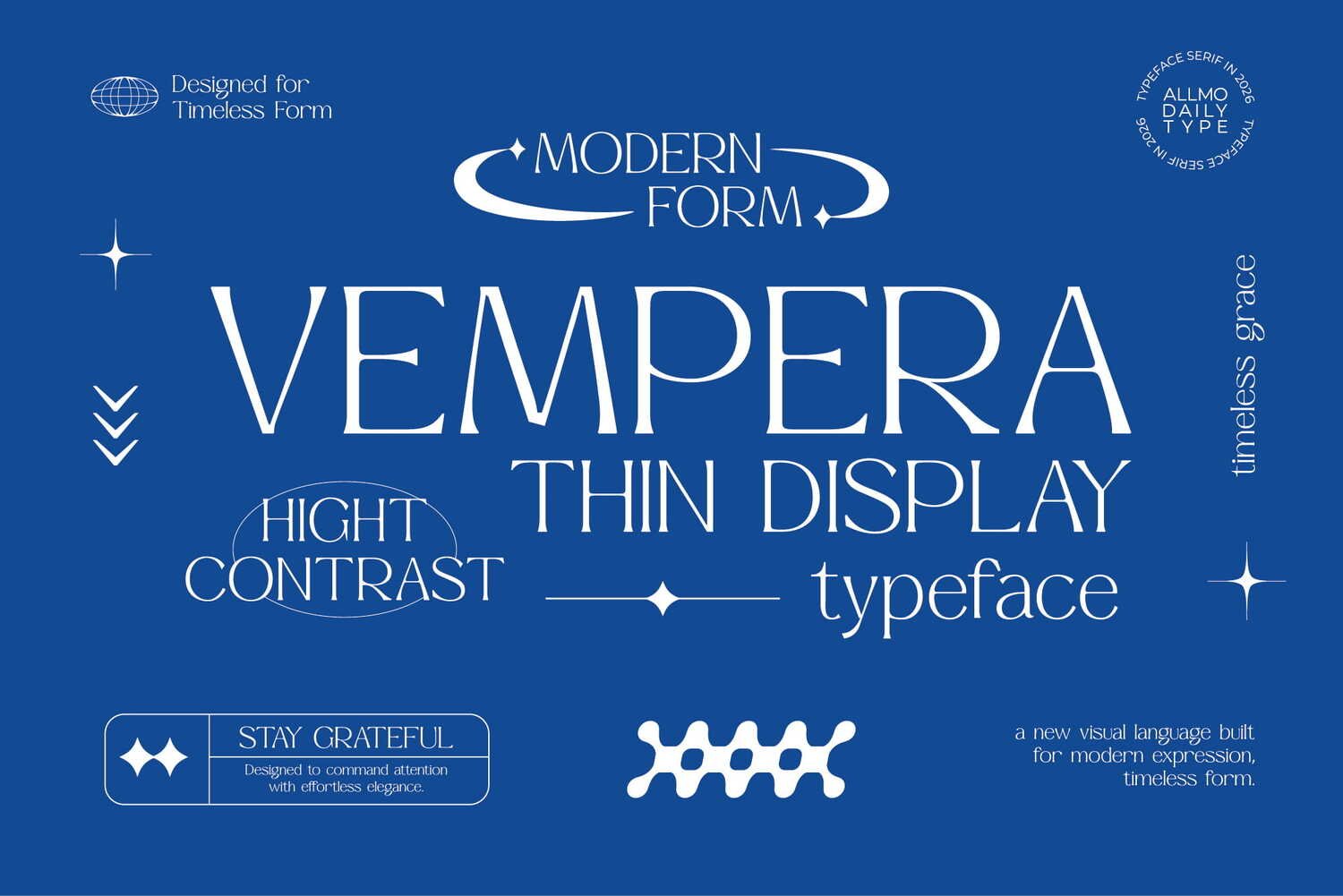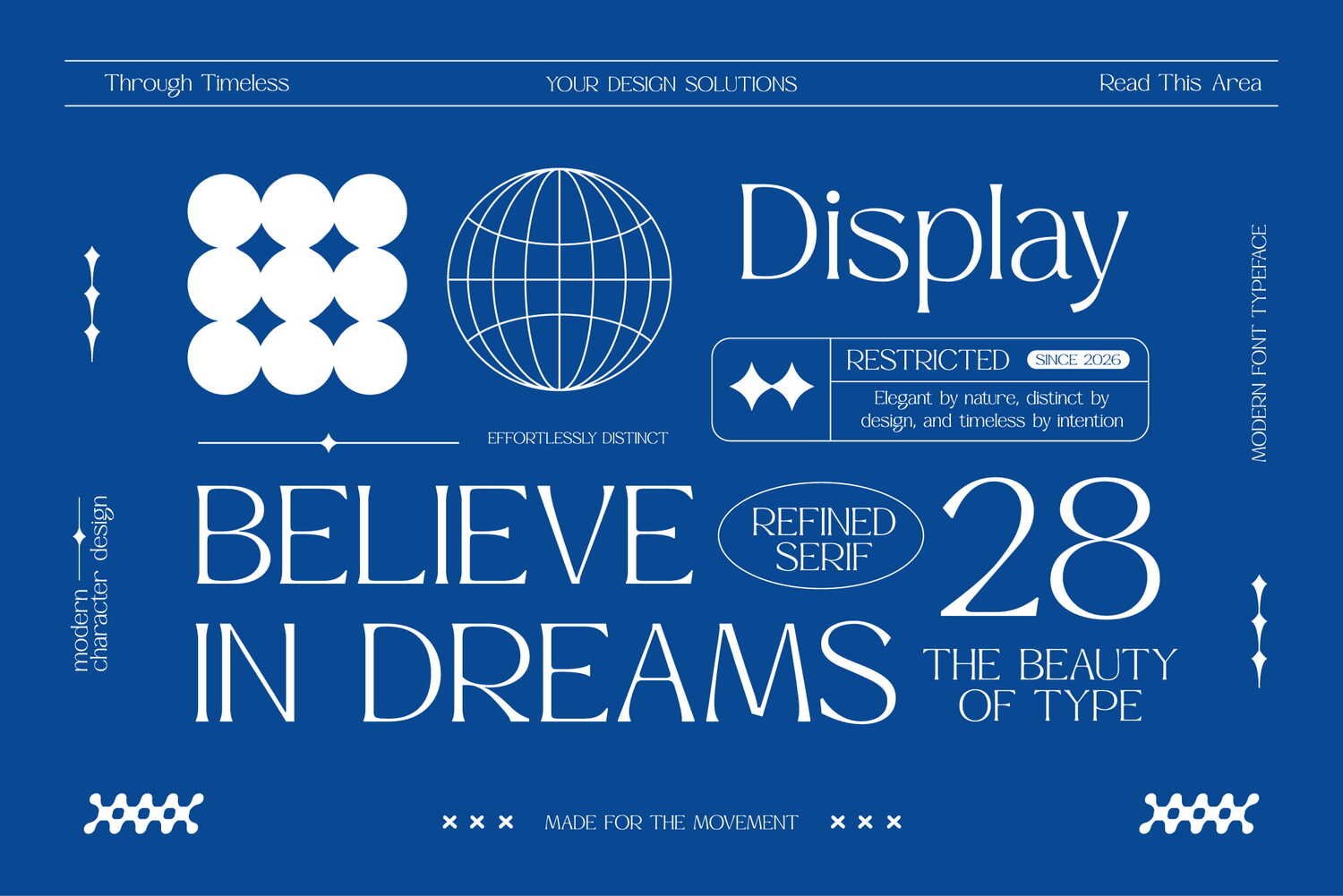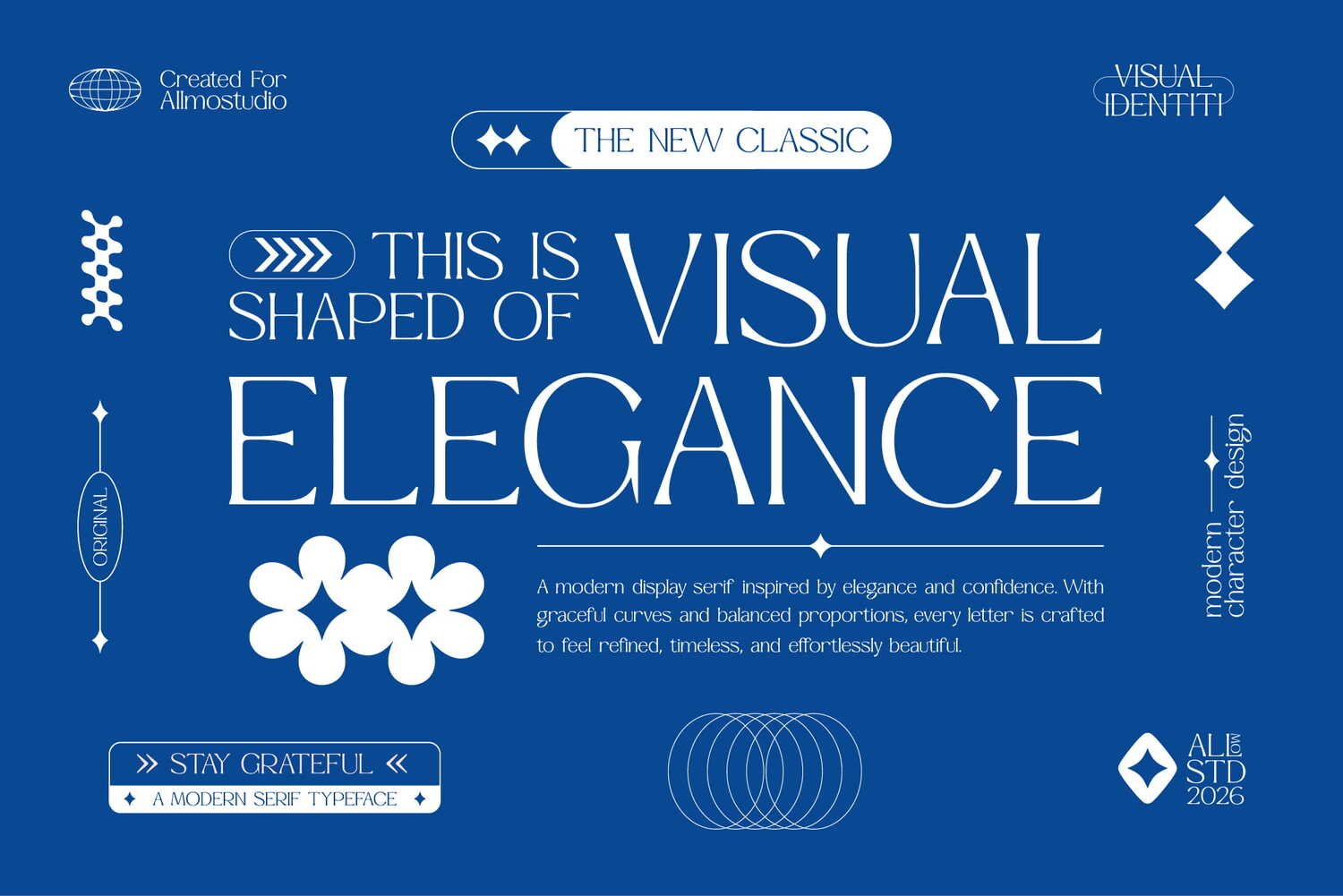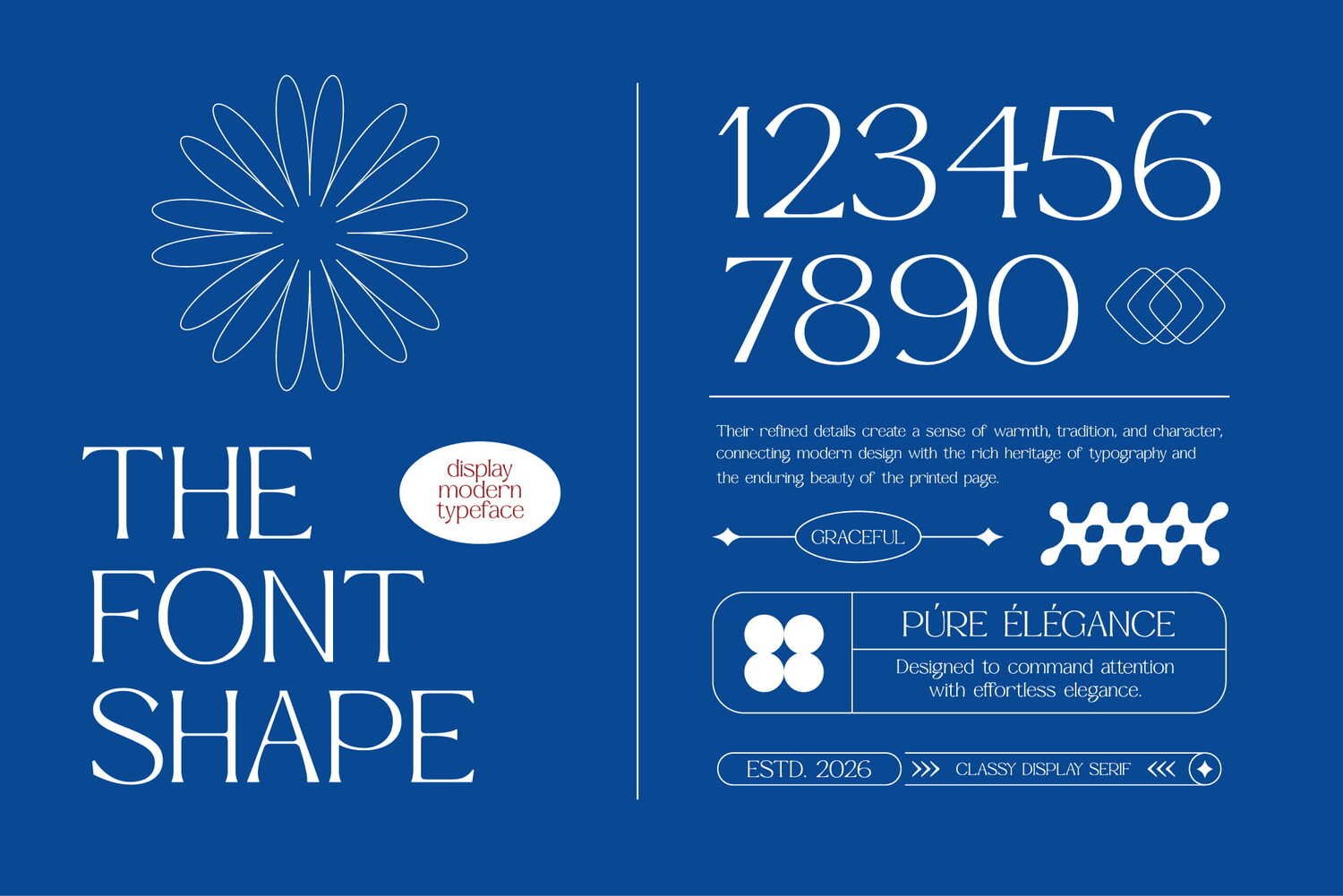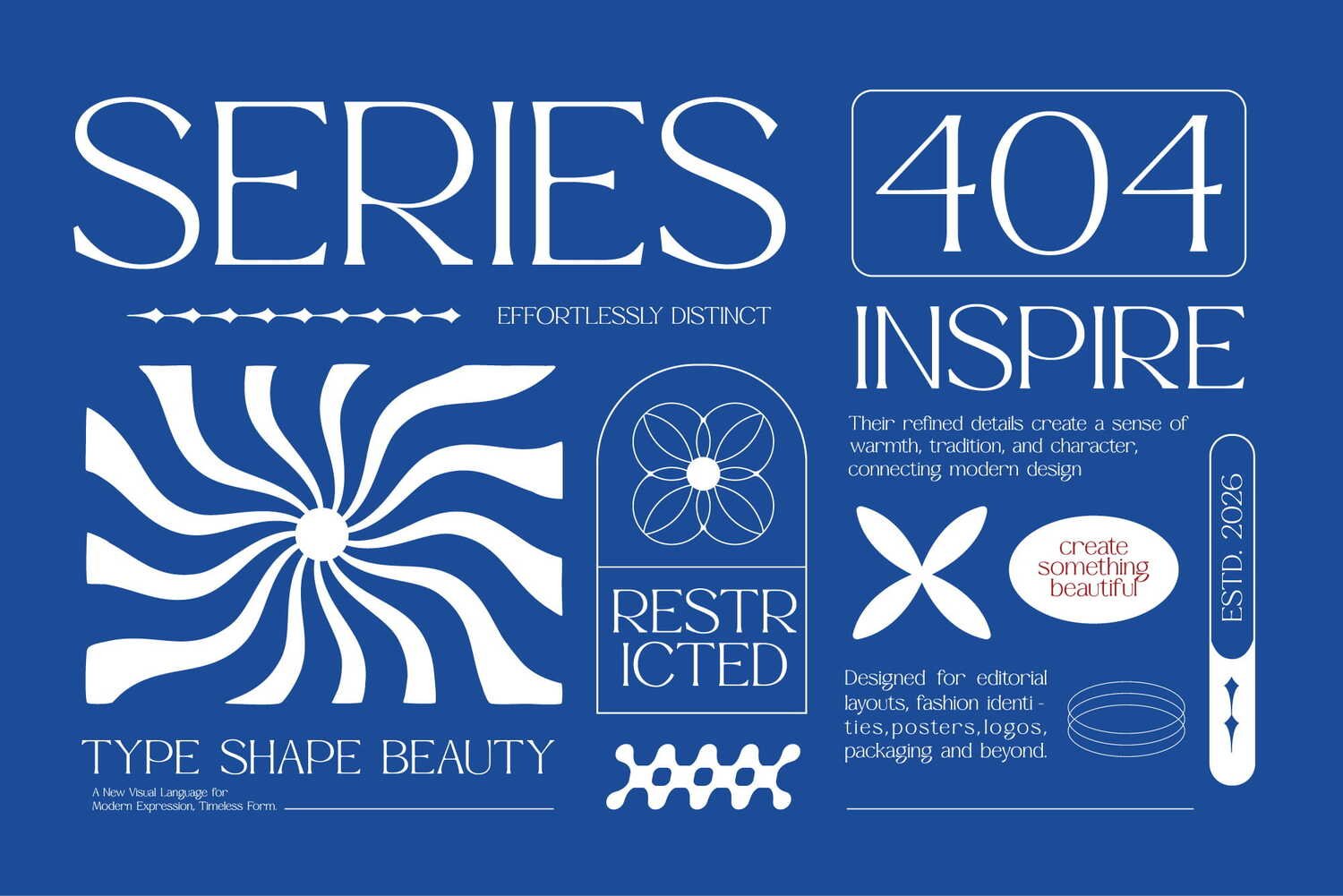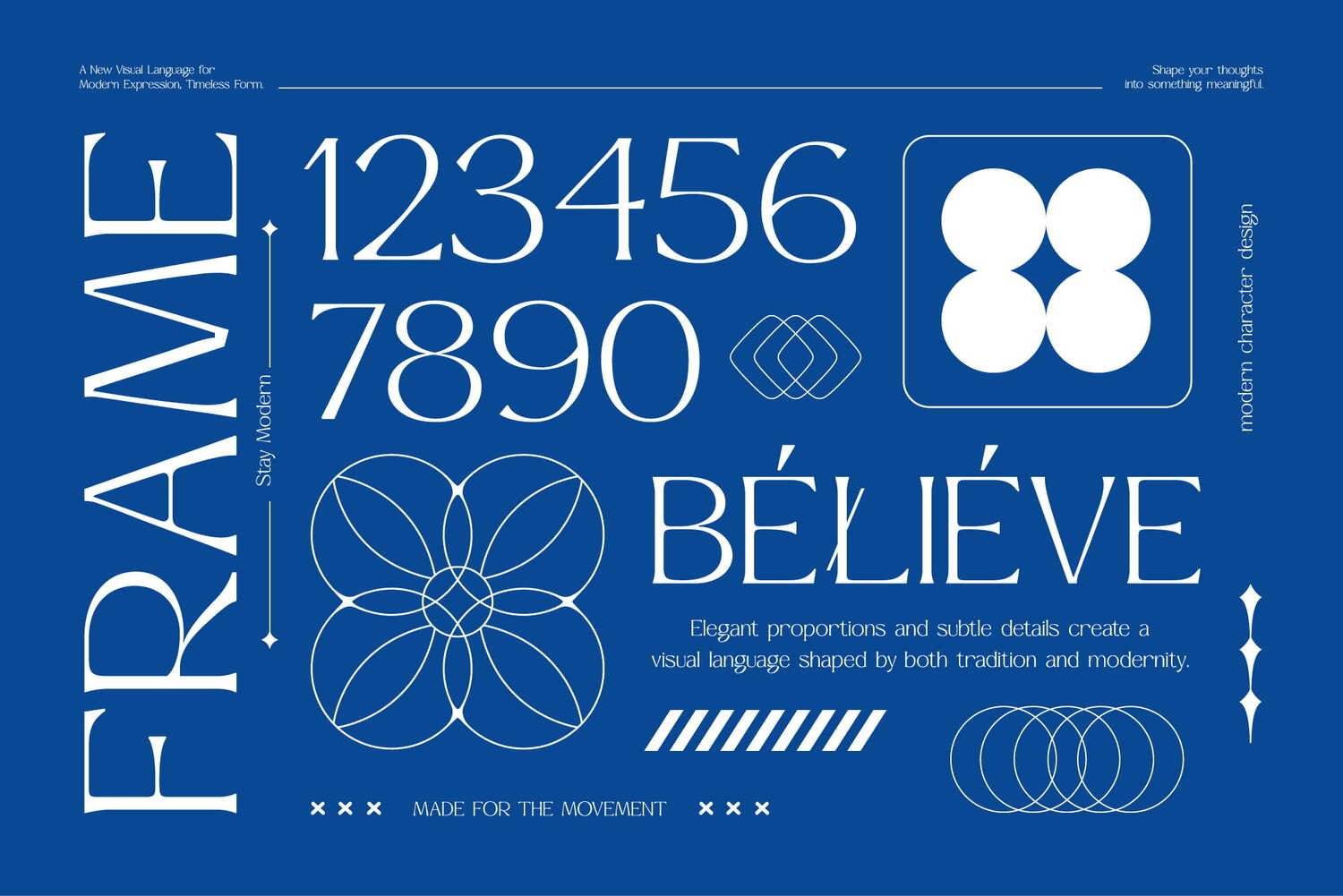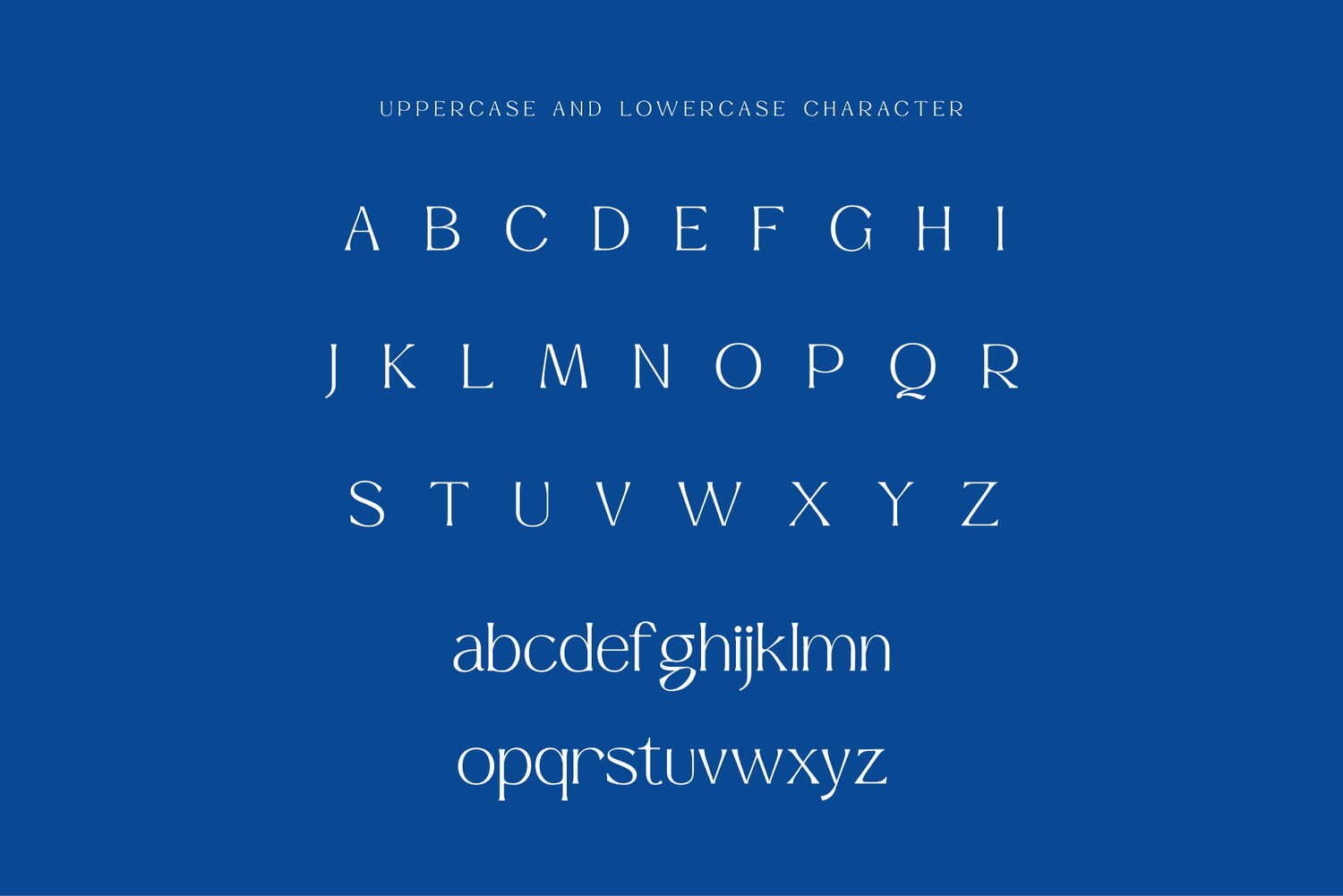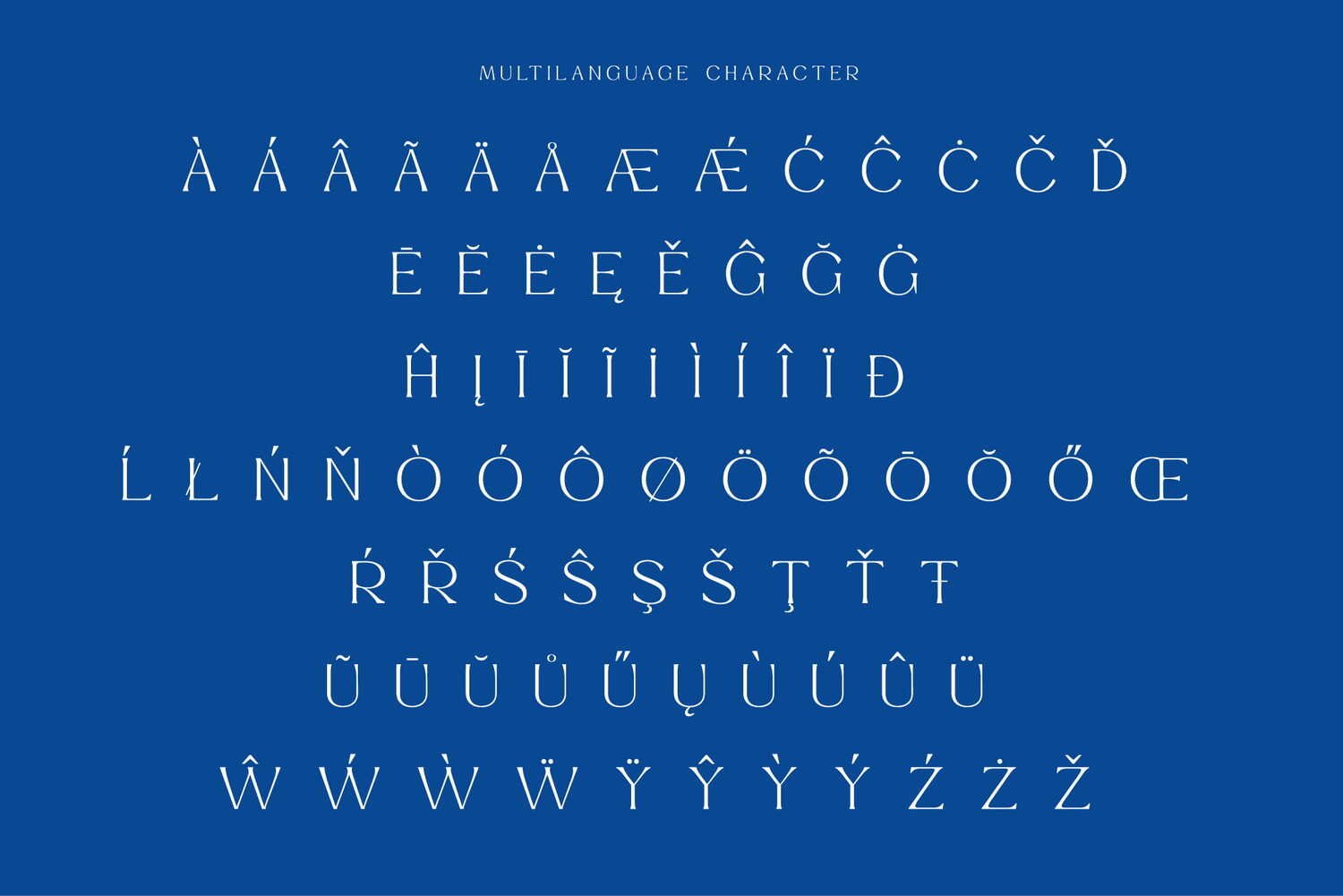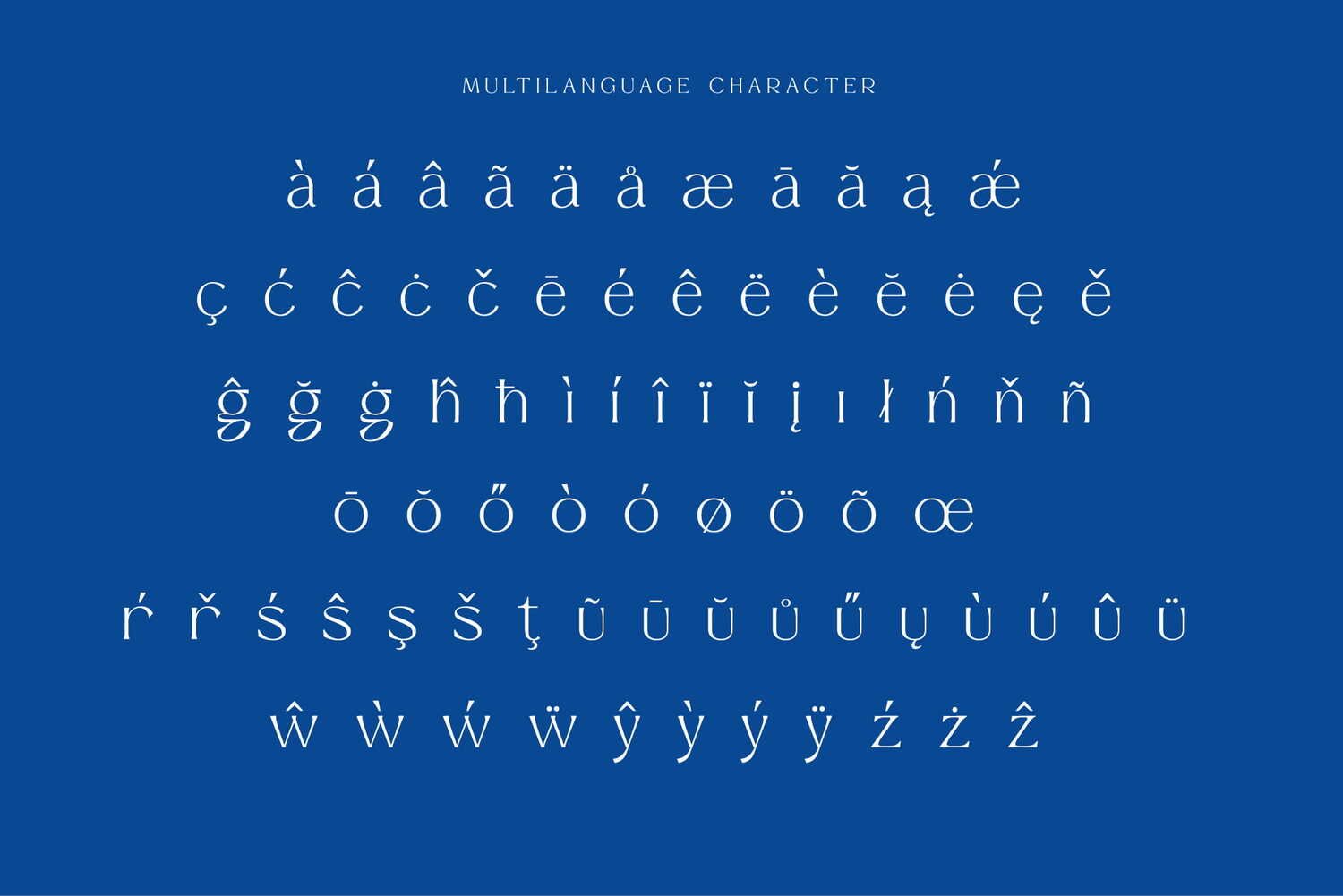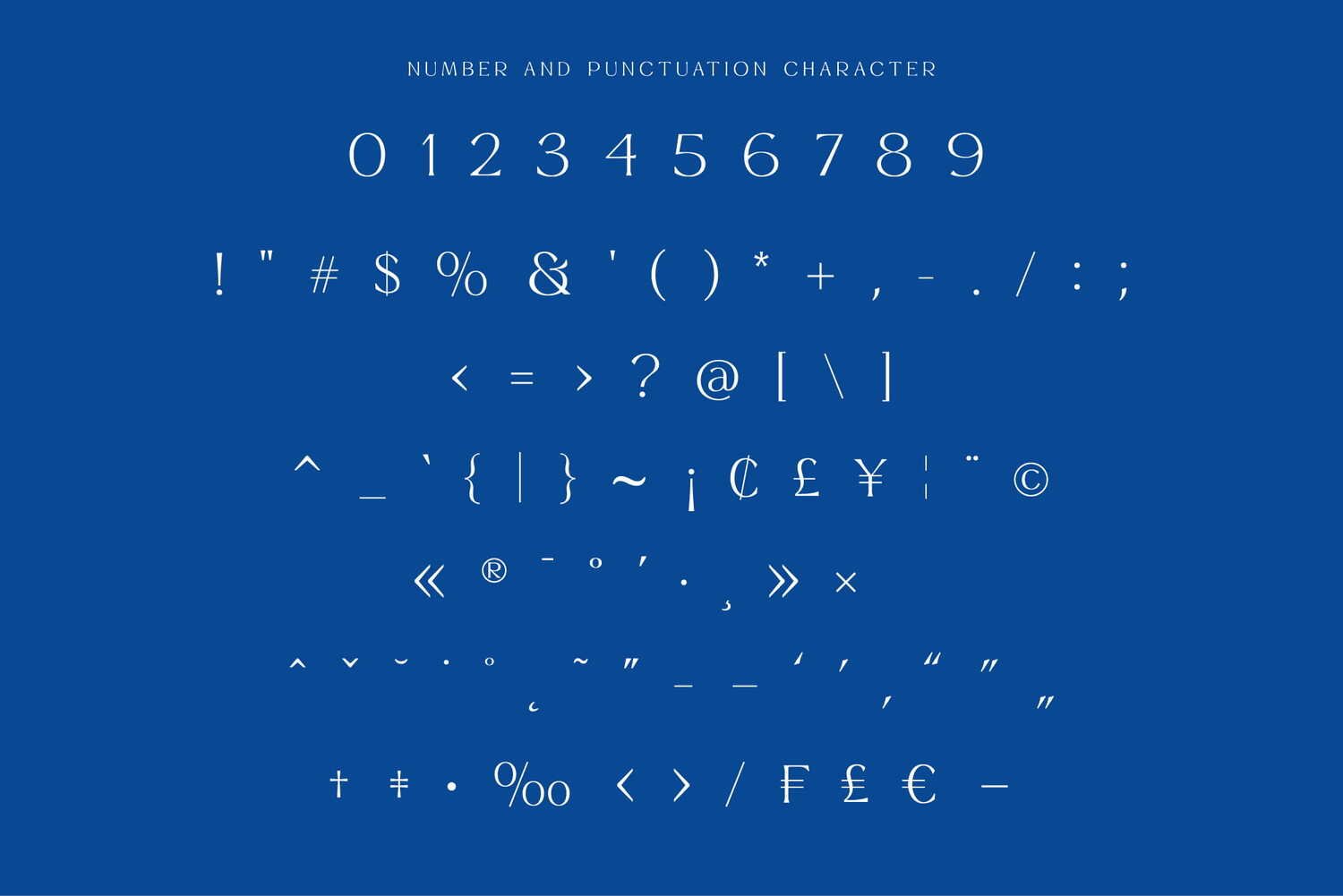
Vempera is a refined modern serif typeface that blends elegant proportions with thin, high-contrast forms. Designed for sophisticated visual identities, Vempera brings a distinctive editorial character to fashion, branding, beauty, packaging, posters, and creative projects.
All characters are PUA encoded and the font includes multilingual support, making it easy to use across different software and languages.